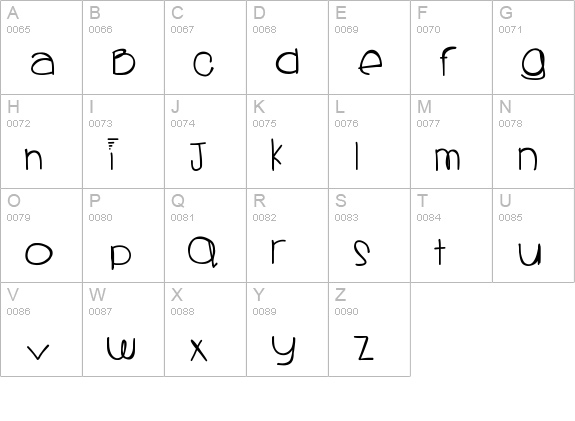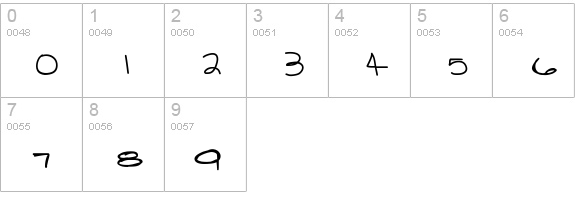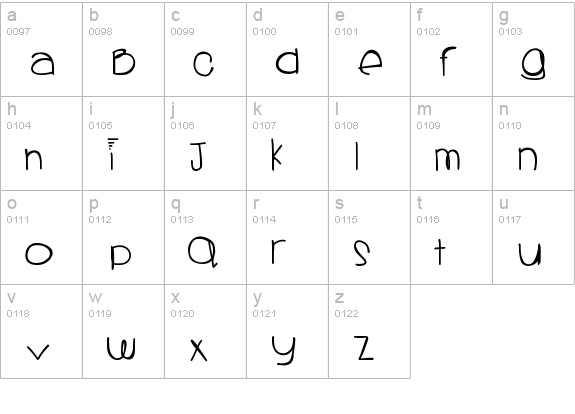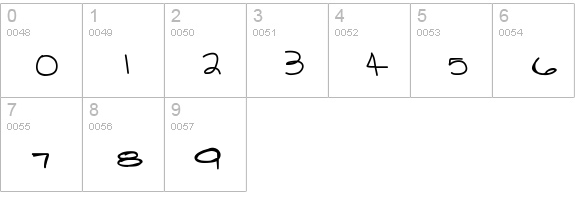
Sprinklescolors Font Details
Sprinklescolors Font is a delightful and playful typeface that is sure to add a touch of fun and whimsy to any design project. With its vibrant and energetic letterforms, this font brings life and excitement to your words. Each letter is uniquely crafted with a splash of colors, giving it a dynamic and eye-catching appearance. This font is perfect for a variety of design applications, from children's books and toy packaging to party invitations and greeting cards. Its lively and cheerful nature instantly grabs attention and evokes a sense of joy and creativity. What makes Sprinklescolors Font even more appealing is that it is free! That's right, this font is freely available to download at FontsMarket.com. You can easily access and use this font without any limitations or fees. Whether you are a professional designer or a hobbyist, you can enjoy the benefits of this vibrant typeface without breaking the bank. Sprinklescolors Font offers a wide range of characters, including uppercase and lowercase letters, numbers, and various punctuation marks. It is well-suited for both print and digital designs, ensuring versatility and flexibility in your creative projects. So why wait? Download Sprinklescolors Font today and infuse your designs with a burst of color and cheerfulness. Let your imagination run wild and watch as this font adds a touch of magic to your creations. Don't miss out on this fantastic opportunity to enhance your designs with a free and captivating typeface.